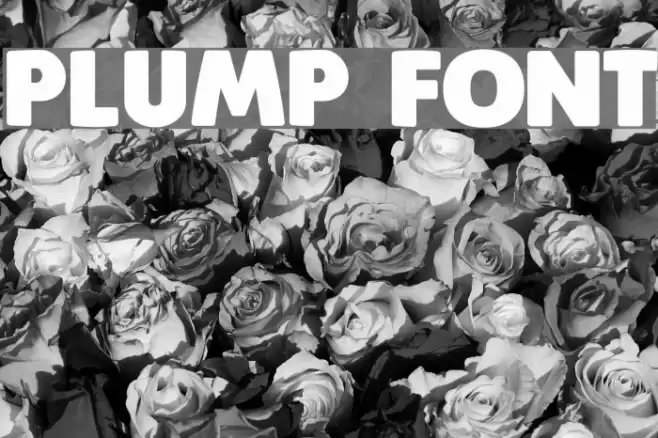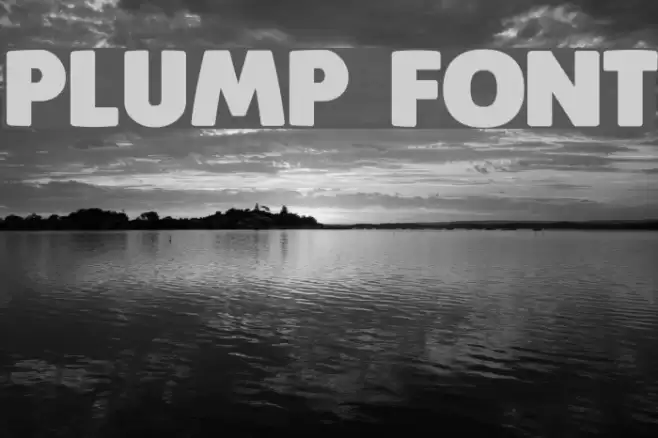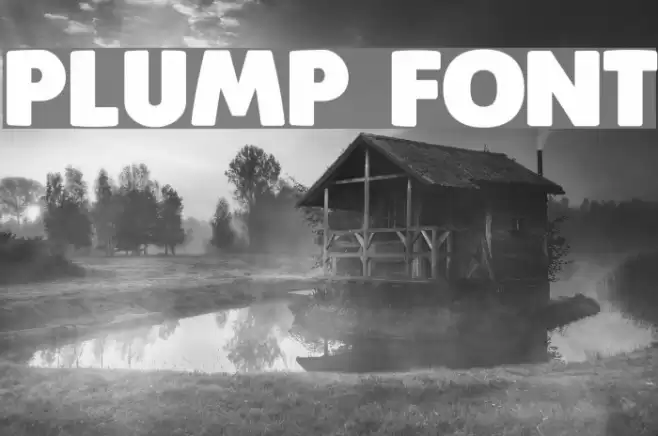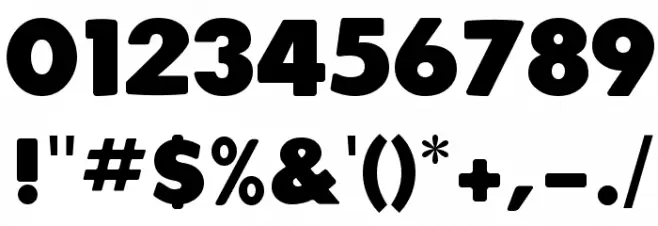
Plump Font
Plump Description
This font features bold, rounded characters that exude a playful and friendly vibe. The letters are thick and have a uniform stroke width, contributing to a strong visual impact. The rounded edges soften the overall appearance, making it approachable and suitable for a variety of informal contexts. The numerals and special characters maintain the same boldness and rounded style, ensuring consistency across all glyphs. This font is particularly effective in capturing attention due to its substantial weight and presence, making it ideal for headlines and display purposes.
A bold, rounded font with a playful and friendly appearance from Uncategorized fonts.
- Proposed Projects: Ideal for children's books, playful branding, posters, and any project requiring a fun and approachable typeface.
- Overall Style: Playful